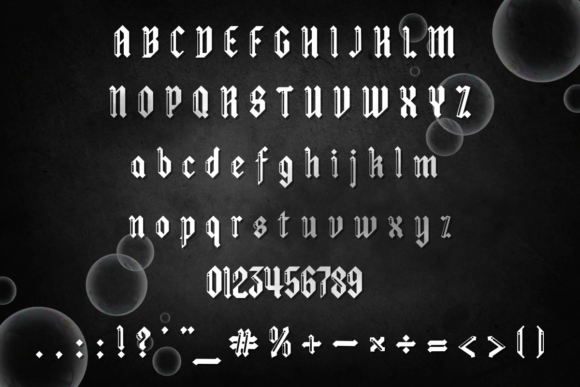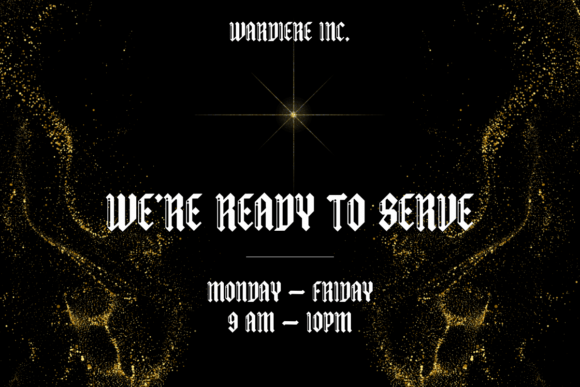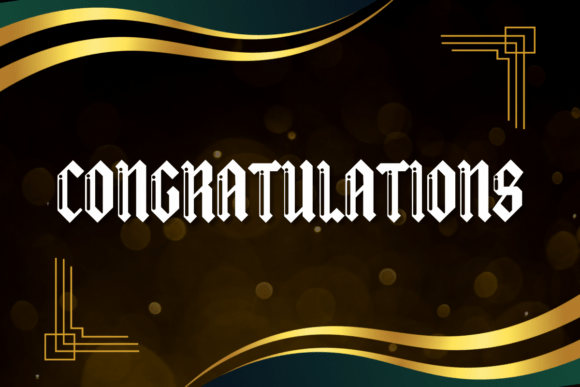
Bubble Old English Font
Bubble Old English is a handwritten font. You can use it for taking notes, writing a diary or making greeting cards. However you can still use it for other designs such as banners content mugs cards shirts stationery social media posts and more!